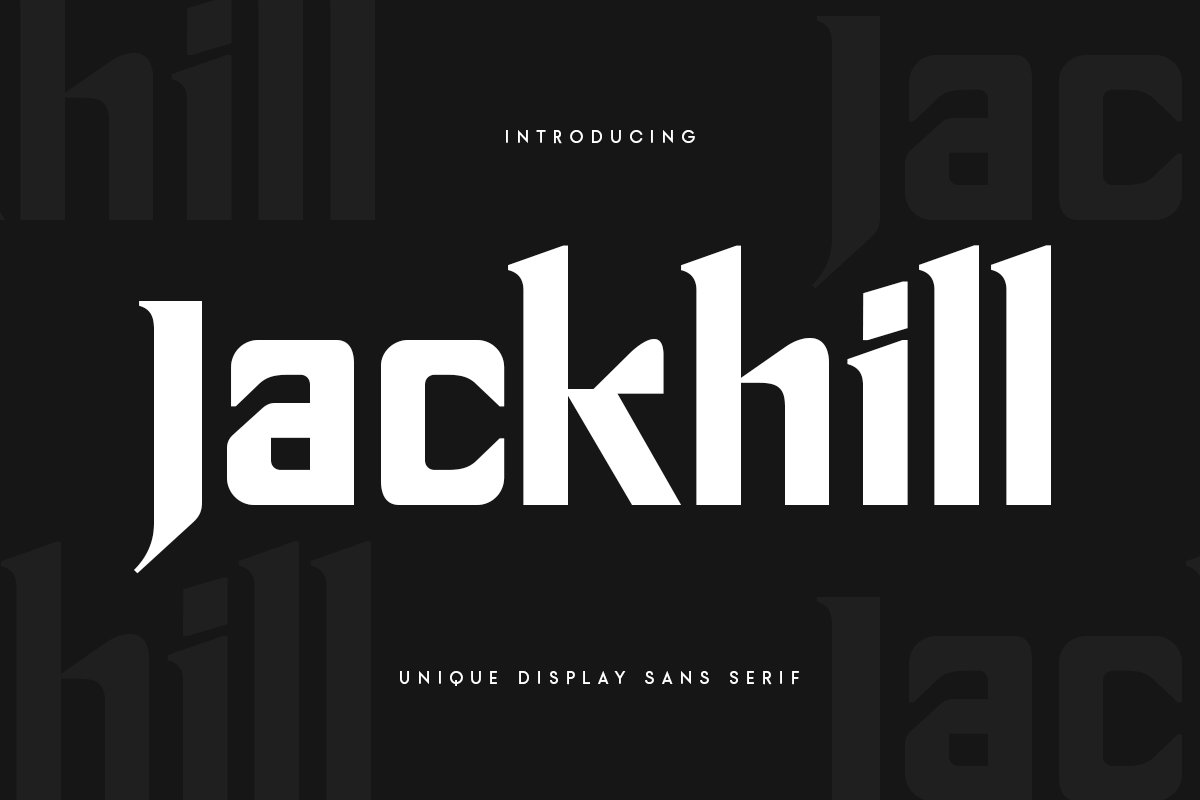
Jackhill
-Unique Display Sans SerifType Tester
Jackhill is Modern Unique Display font with stylistic and unique style ready for any project you want, font that you can combine to get any variations and unique shapes easily just in seconds with choose alternates of them. It is a display font with moderate contrast that perfect for branding projects, logo, urban designs, social media posts, advertisements, product packaging, product designs, label, photography, watermark, and any projects, it makes with a high level of legibility.